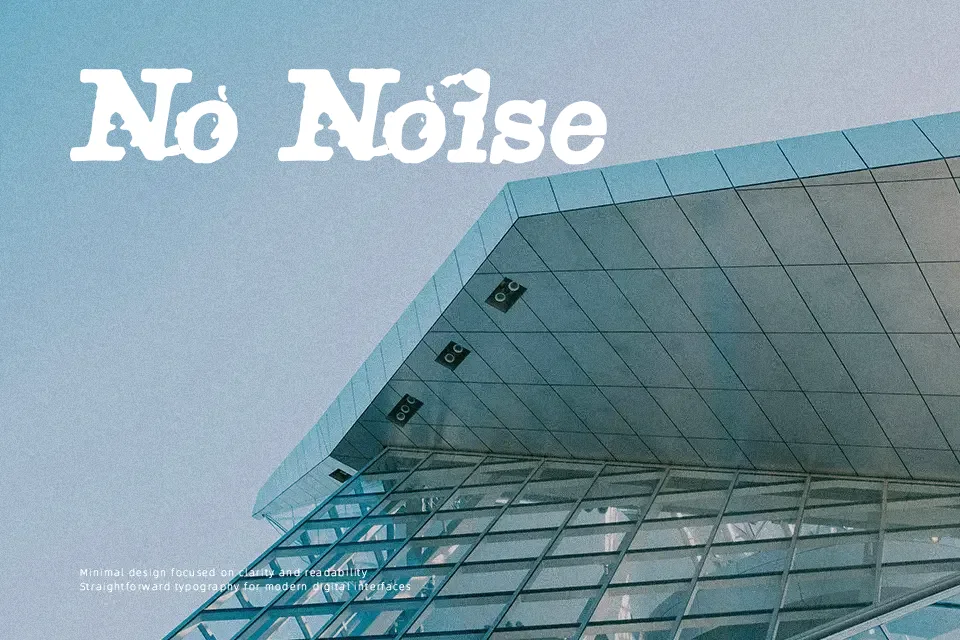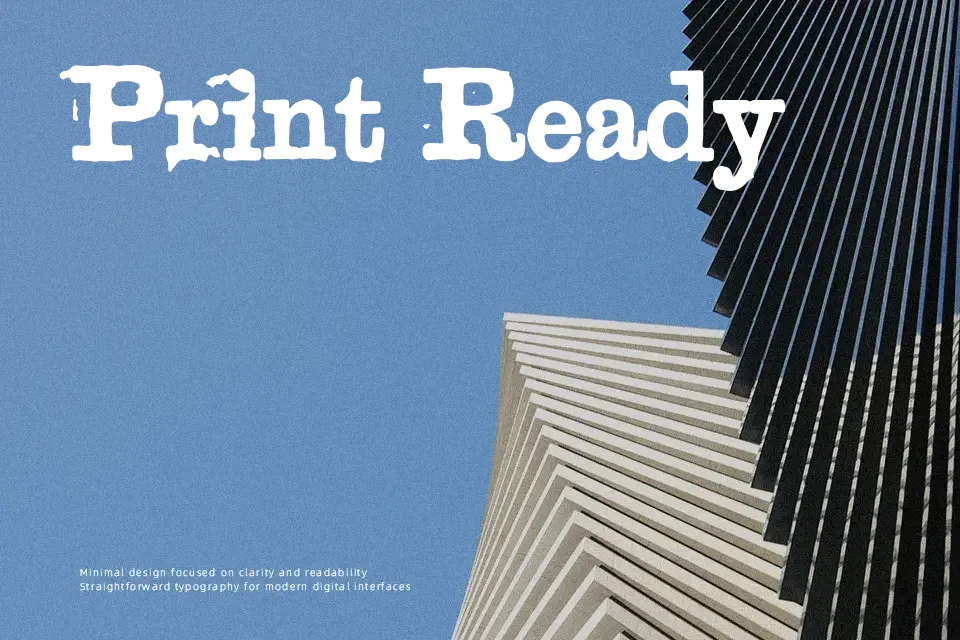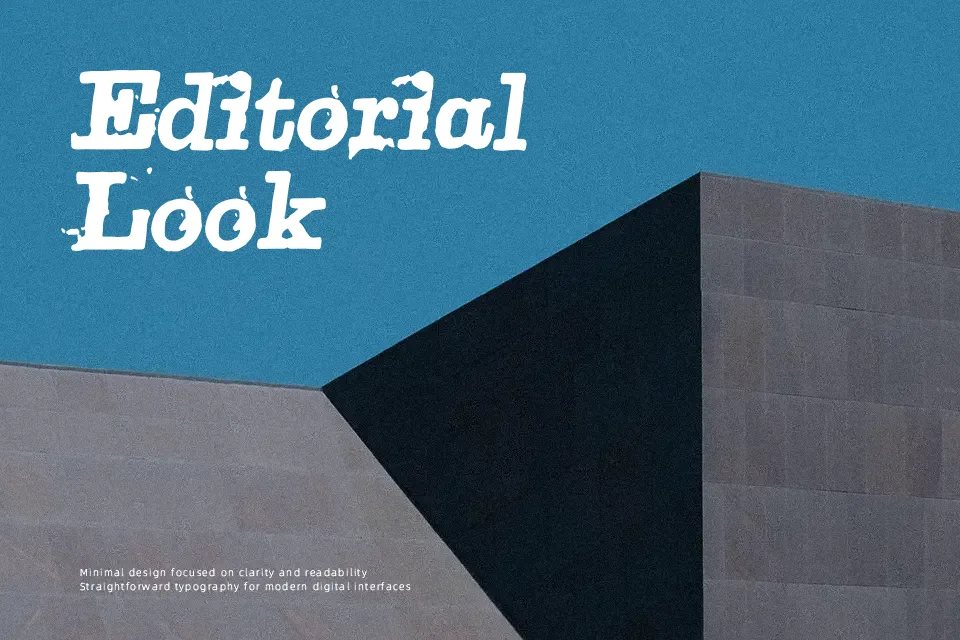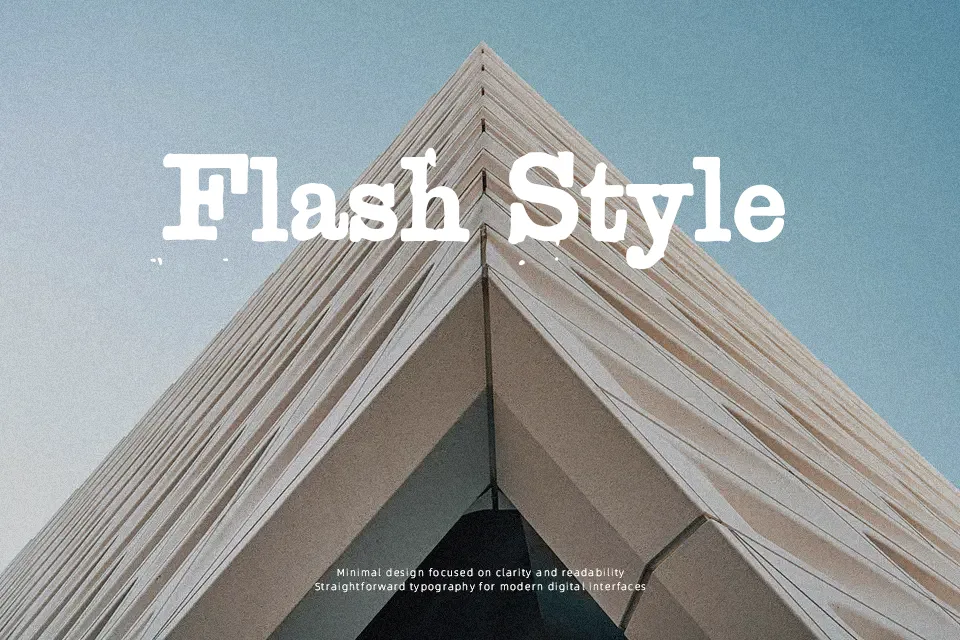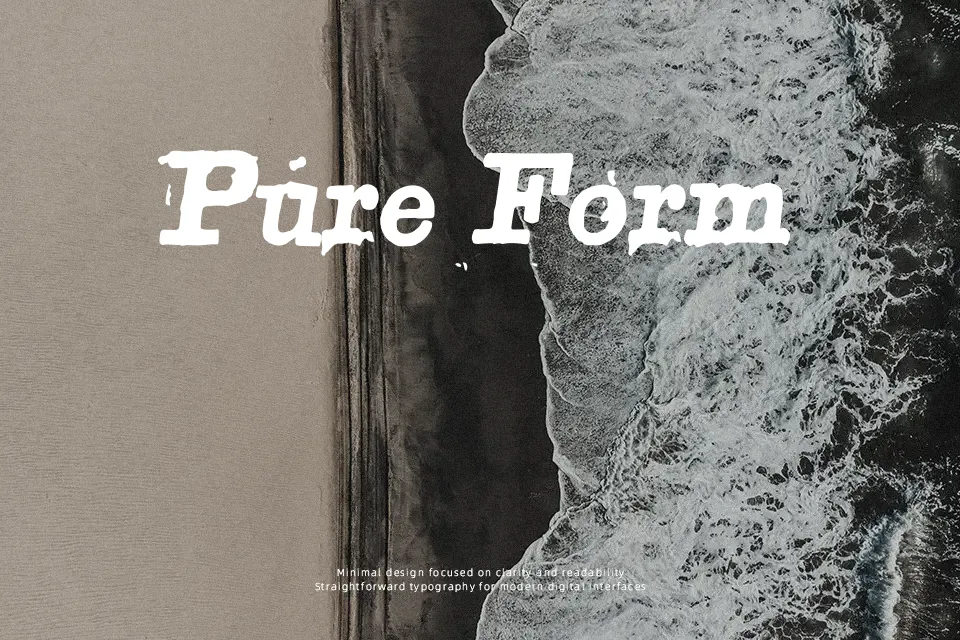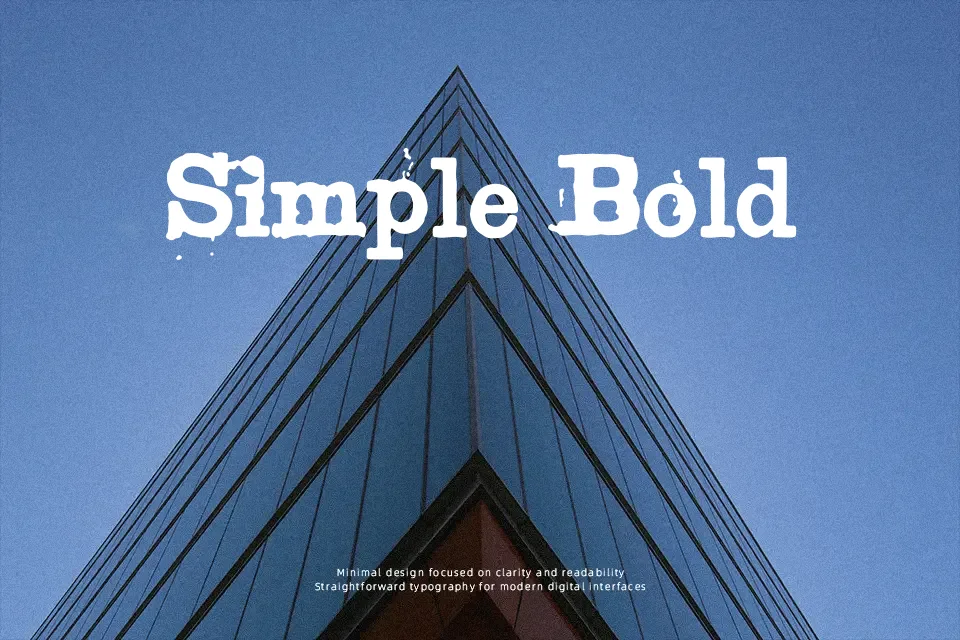
Redwater Banker Font
Designed by Måns Grebäck
Redwater Banker Font immediately establishes a rugged, vintage aesthetic through its carefully textured letterforms. The strokes simulate the uneven pressure and ink bleed of a classic mechanical typewriter, giving the characters a gritty, stamped appearance. Its proportions maintain a steady visual rhythm, while the slightly distressed edges add organic warmth to the typography. The inclusion of unique symbols like eagles and crowns within the bracket keys provides extra versatility for decorative layouts. While the distressed nature enhances large titles and retro branding, these same textured details can reduce continuous reading comfort at smaller sizes. The generous spacing helps maintain clarity in medium display settings, making it highly effective for authentic period pieces and rustic packaging.
Best For: vintage product packaging, historical document replicas, rustic branding, retro poster design
Not Ideal For: small interface labels, long paragraph text, corporate reports, spreadsheet data
Perfect for branding, headline, and packaging, with a classic and decorative style.